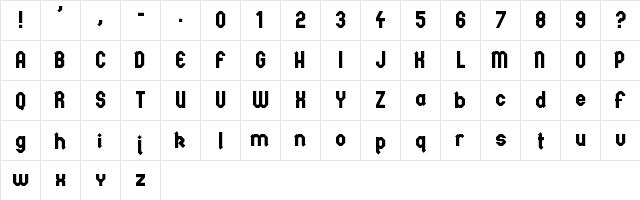
Spanish Castles Regular
| Designer | imagex |
Design Context for Spanish Castles Typeface
Spanish Castles is a composed and adaptable typeface that performs quietly and consistently across a wide range of design contexts.